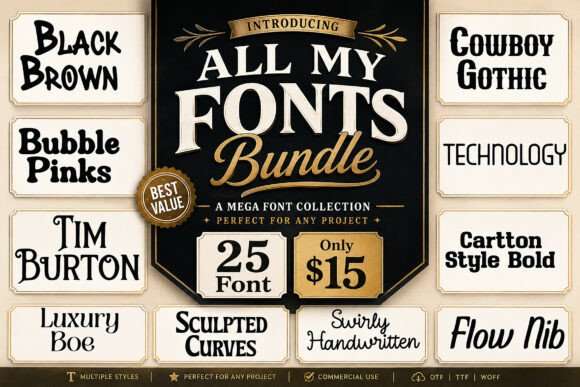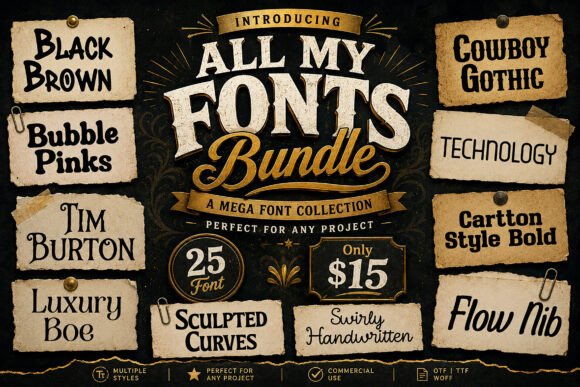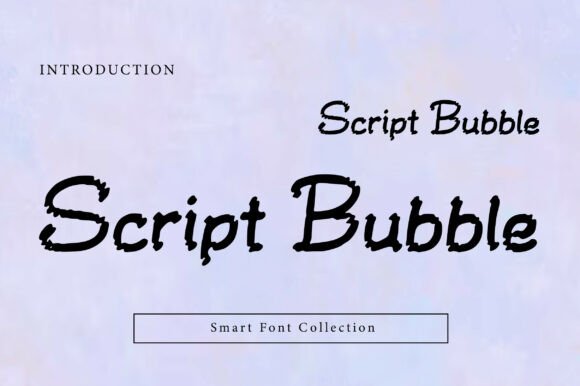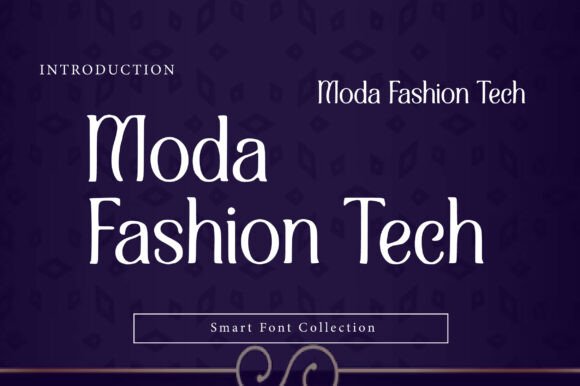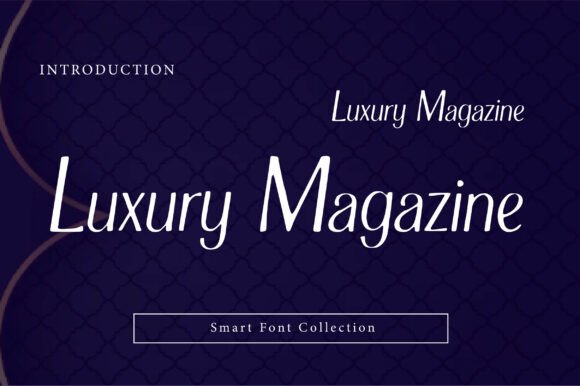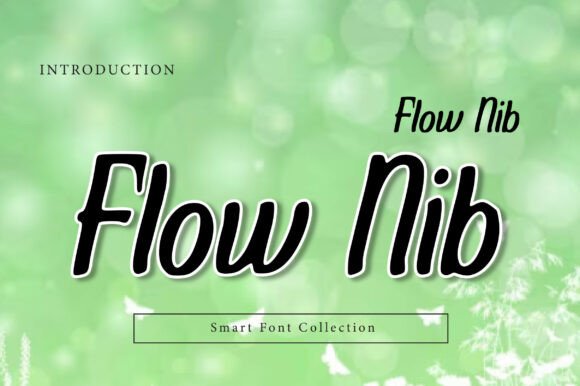
Unlock Endless Design Possibilities with All My Fonts Bundle
Are you tired of using the same old fonts in your designs? Do you want to take your creative projects to the next level with unique and stylish typography? Look no further than the All My Fonts Bundle, a comprehensive collection of display fonts that will revolutionize the way you approach design.
What is All My Fonts Bundle?
Introducing All My Fonts Bundle — a creative mega collection of stylish display fonts designed to make your projects stand out beautifully. This bundle includes a versatile mix of handwritten, western, gothic, luxury, bubble, cartoon, and modern typography styles perfect for both professional and fun designs.
Why You’ll Love All My Fonts Bundle
Whether you’re creating logos, branding, social media graphics, posters, packaging, apparel, invitations, or print-on-demand products, this font collection gives you everything you need in one affordable bundle. Here are just a few reasons why designers and crafters will love All My Fonts Bundle:
- Unlimited design possibilities: With a vast array of font styles to choose from, you’ll never run out of creative options.
- Time-saving: No need to search for individual fonts or spend hours browsing through font libraries.
Who is All My Fonts Bundle for?
This font bundle is perfect for:
- Graphic designers: Take your clients’ projects to the next level with unique and stylish typography.
- Social media influencers: Elevate your social media graphics and stand out from the crowd.
- Crafters: Create beautiful and professional-looking designs for your DIY projects.
- Small business owners: Develop a strong brand identity with custom typography.
What’s Included in All My Fonts Bundle?
This comprehensive font bundle includes:
- 1000+ stylish display fonts
- Handwritten, western, gothic, luxury, bubble, cartoon, and modern typography styles
Don’t settle for ordinary designs. With All My Fonts Bundle, you’ll have the tools you need to create stunning and professional-looking projects. Whether you’re a seasoned designer or a crafty DIY enthusiast, this font bundle is sure to inspire your creativity and take your designs to new heights.